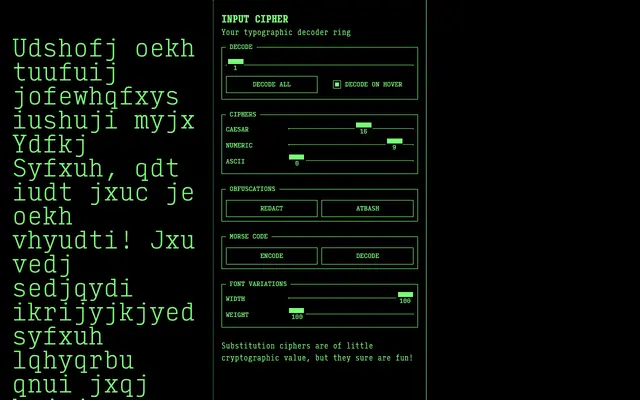
Input Cipher
David Jonathan Ross · David Jonathan Ross
A variable font built around substitution ciphers, ROT encoding and Morse code, letting users encode and gradually reveal text through adjustable axes.
Built as a typographic decoder ring, the font uses variable axes to rotate through Caesar cipher (A-Z), ROT47 (full ASCII range) and ROT5 (numerals), with additional axes for Atbash reversal, full redaction and a Decode axis that progressively reveals hidden text. Morse code input via dots and dashes is also supported, making it genuinely functional as a novelty encoding tool. Width and weight axes sit alongside the cipher controls, giving it some flexibility beyond its primary party trick.
A monospaced variable font designed around cipher and encoding mechanics; the monospacing is essential to its substitution-cipher logic and Morse code output, placing it firmly in the mono category with a novelty/display character.